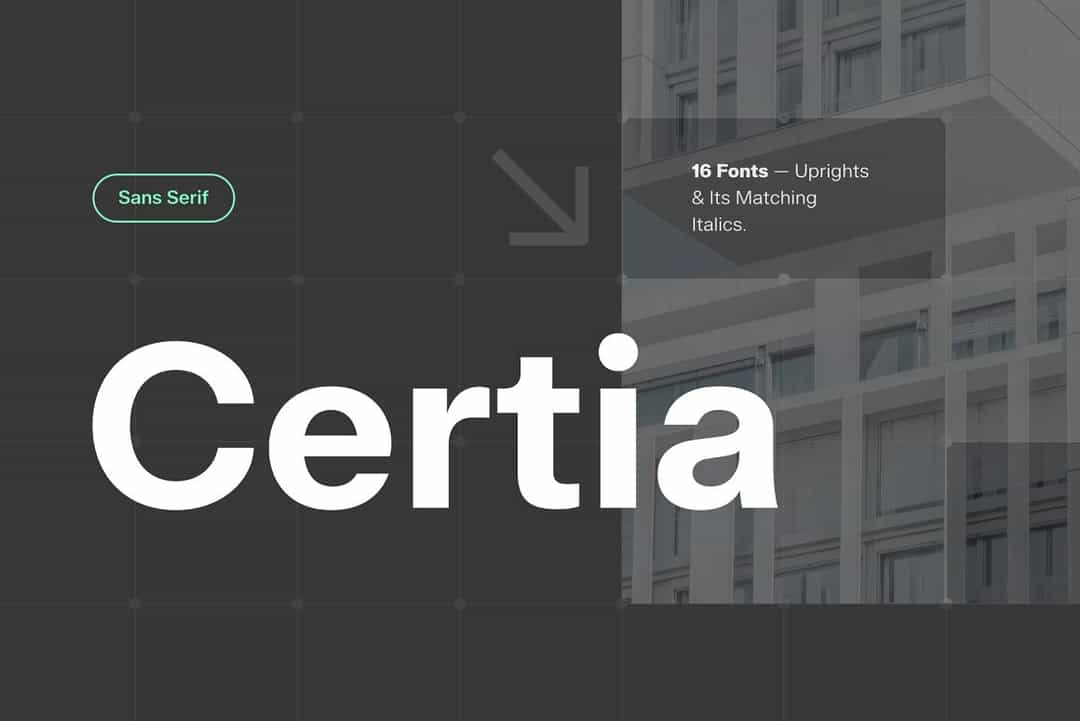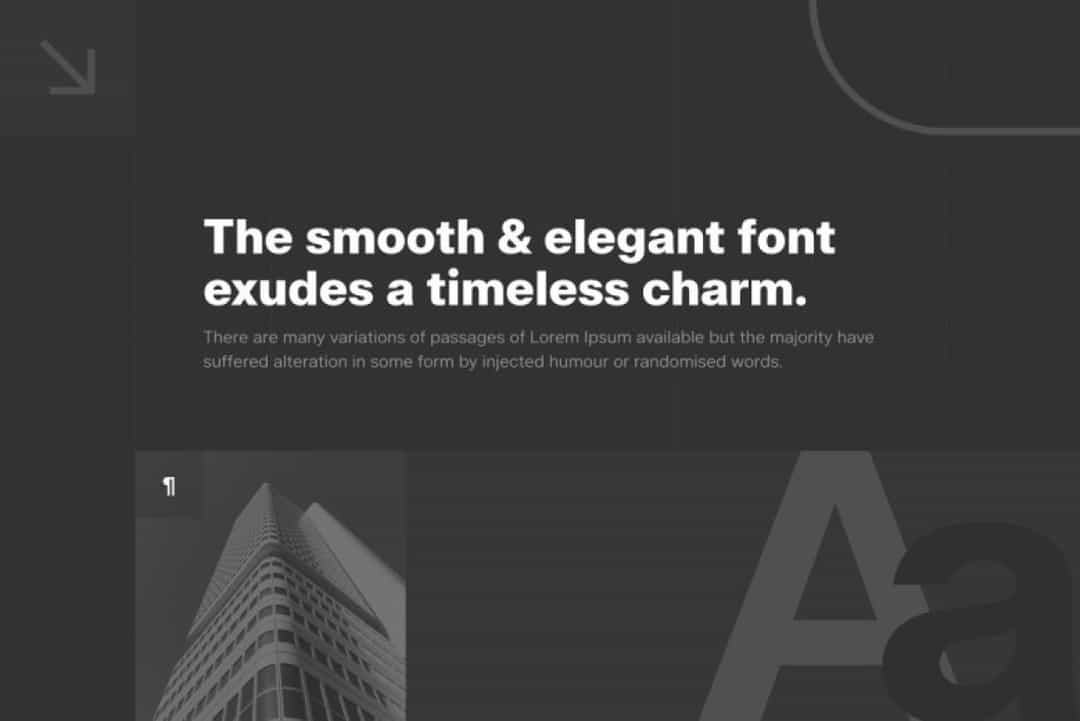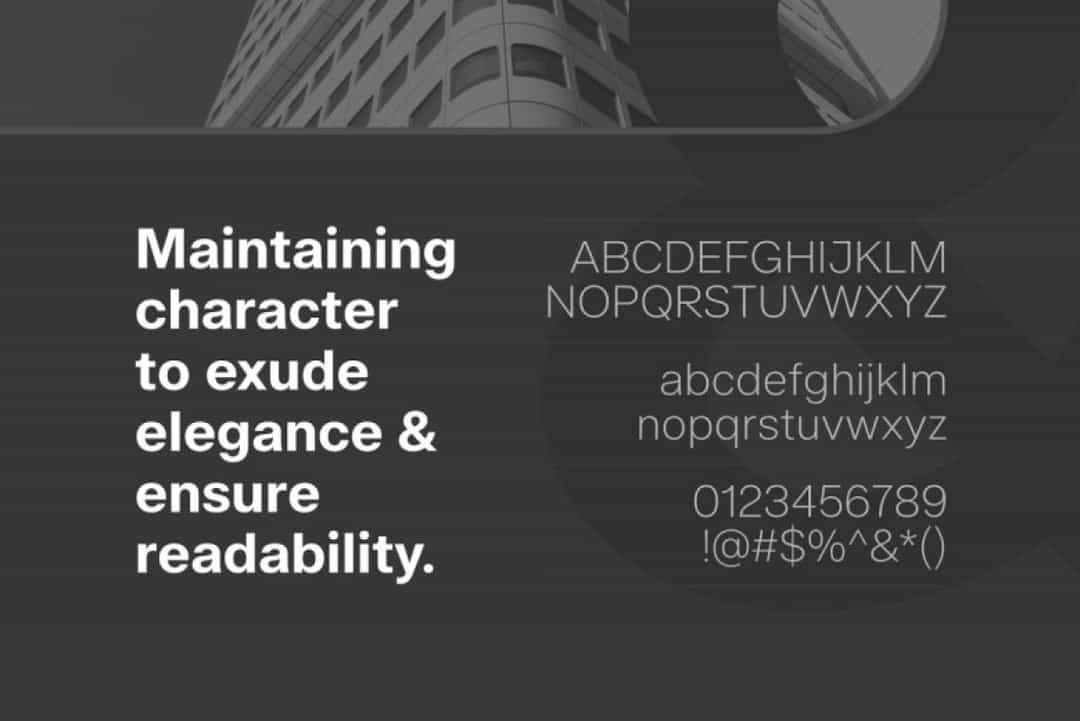
Discover Certia Font, part of the Sans Serif collection—a versatile and unique font perfect for adding a personal touch to your projects. Download it for free and enjoy crafting designs with style, from invitations to social media posts. This font is available exclusively for personal use, giving you the freedom to create without limits. Unlock your creativity with Certia Font today!
Certia is an elegant font family that successfully blends design and function, featuring 16 fonts – including an attractive italic version – designed with maximum accessibility in mind without compromising its elegant aesthetic. Comprised of 16 fonts (including its italic counterpart), Certia meets any communications need globally thanks to its wide language support and versatile typeface; offering access for multiple languages without compromising its elegant style.